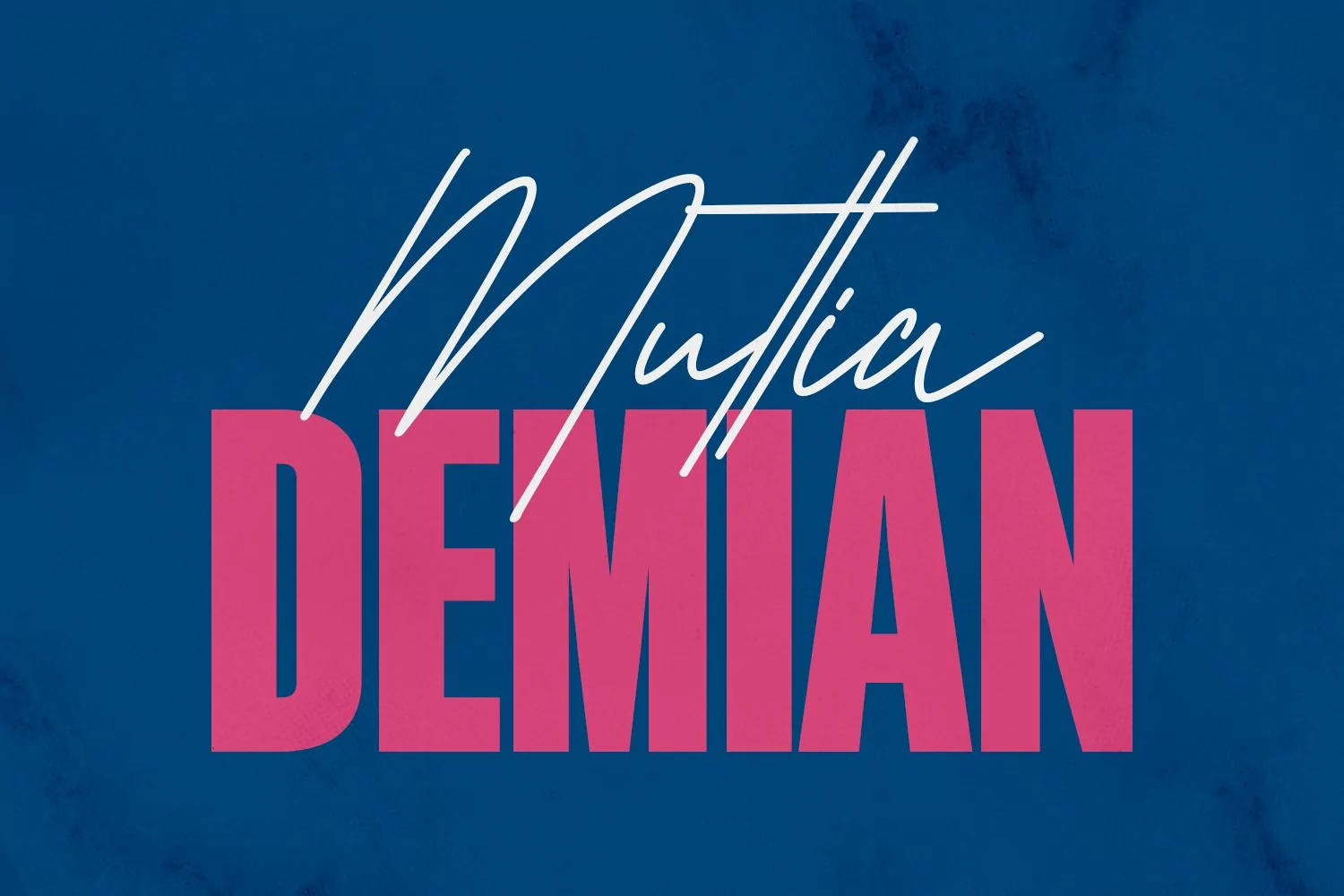
Surfers South is an expressive signature font combine with extra sans display. With light mono-line stroke, fun character with a bit of ligatures and swashes. To give you an extra creative work. Surfers South font support multilingual more than 100+ language. This font is good for logo design, Social media, Movie Titles, Books Titles, a short text even a long text letter and good for your secondary text font with sans or serif. Make a stunning work with Surfers South font.